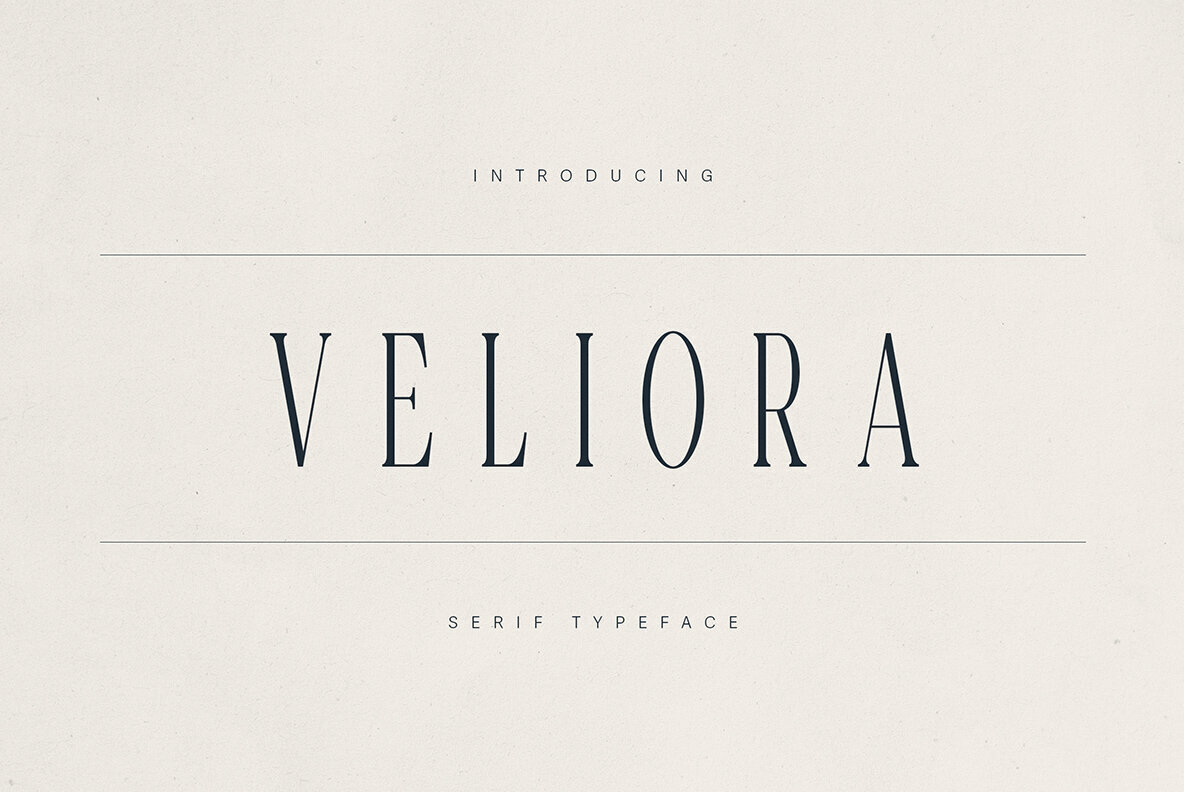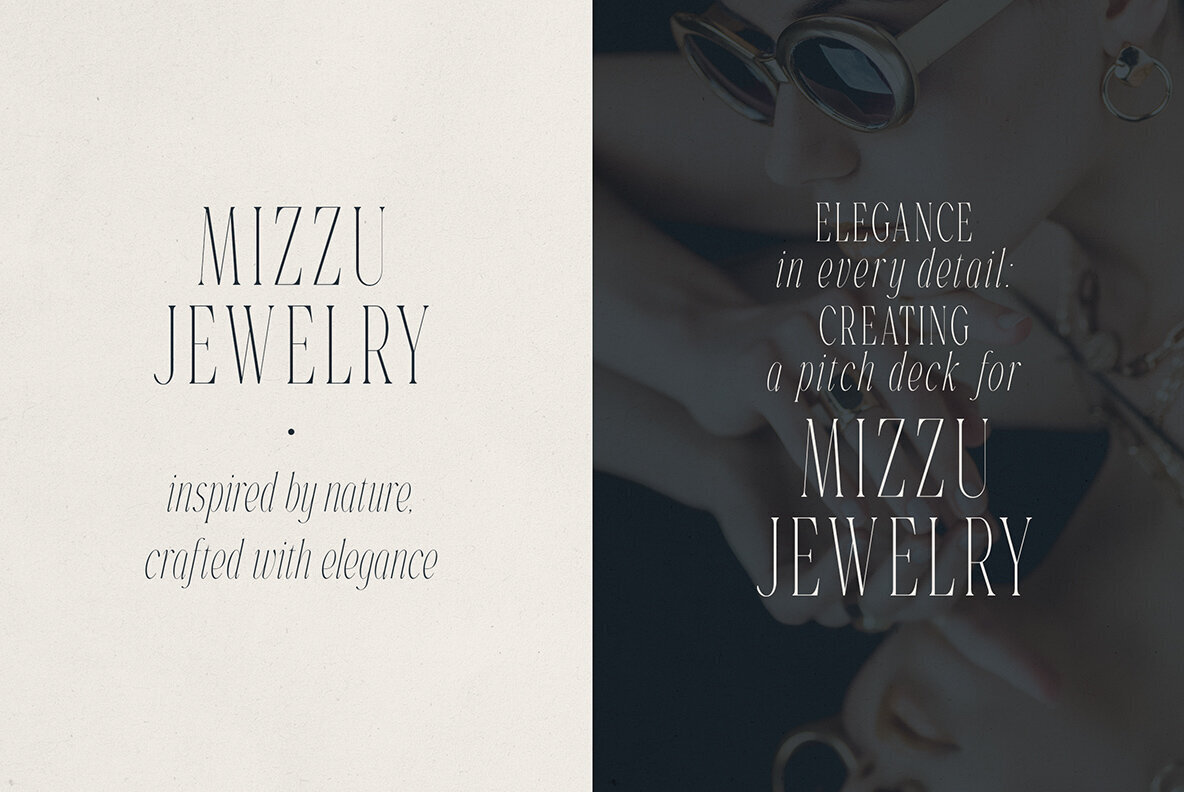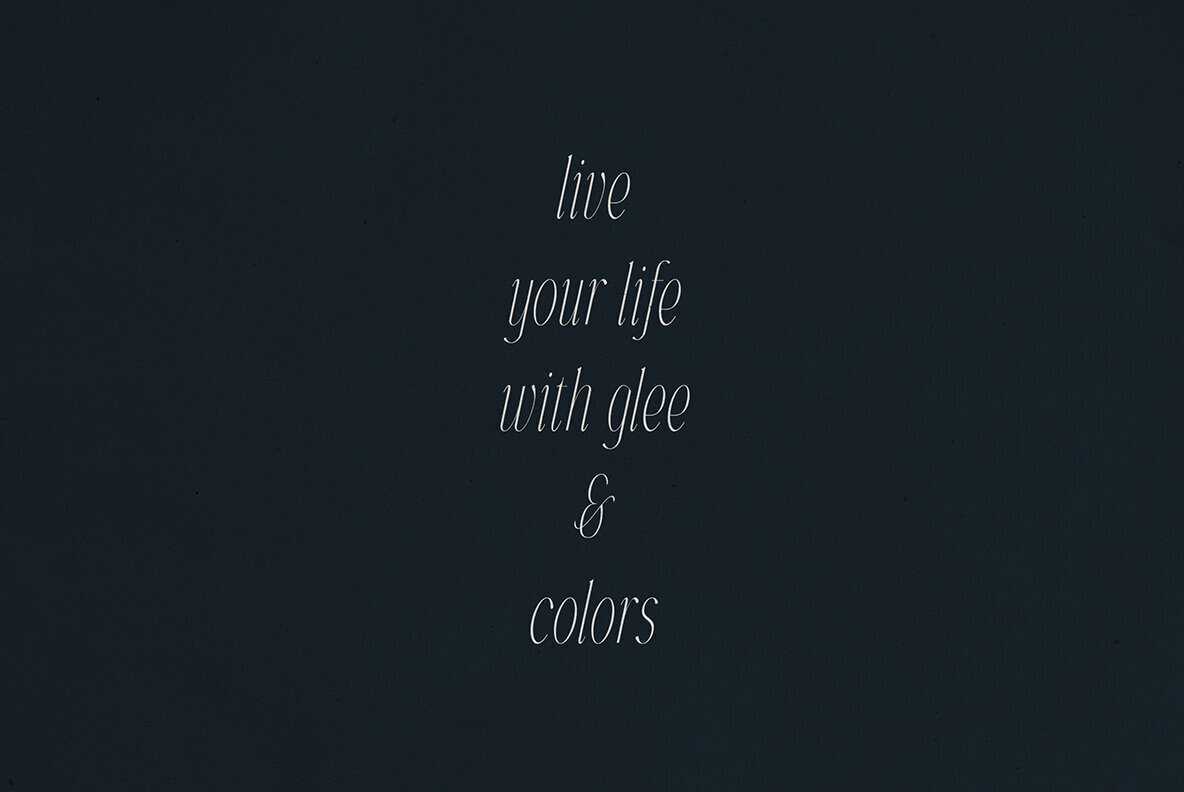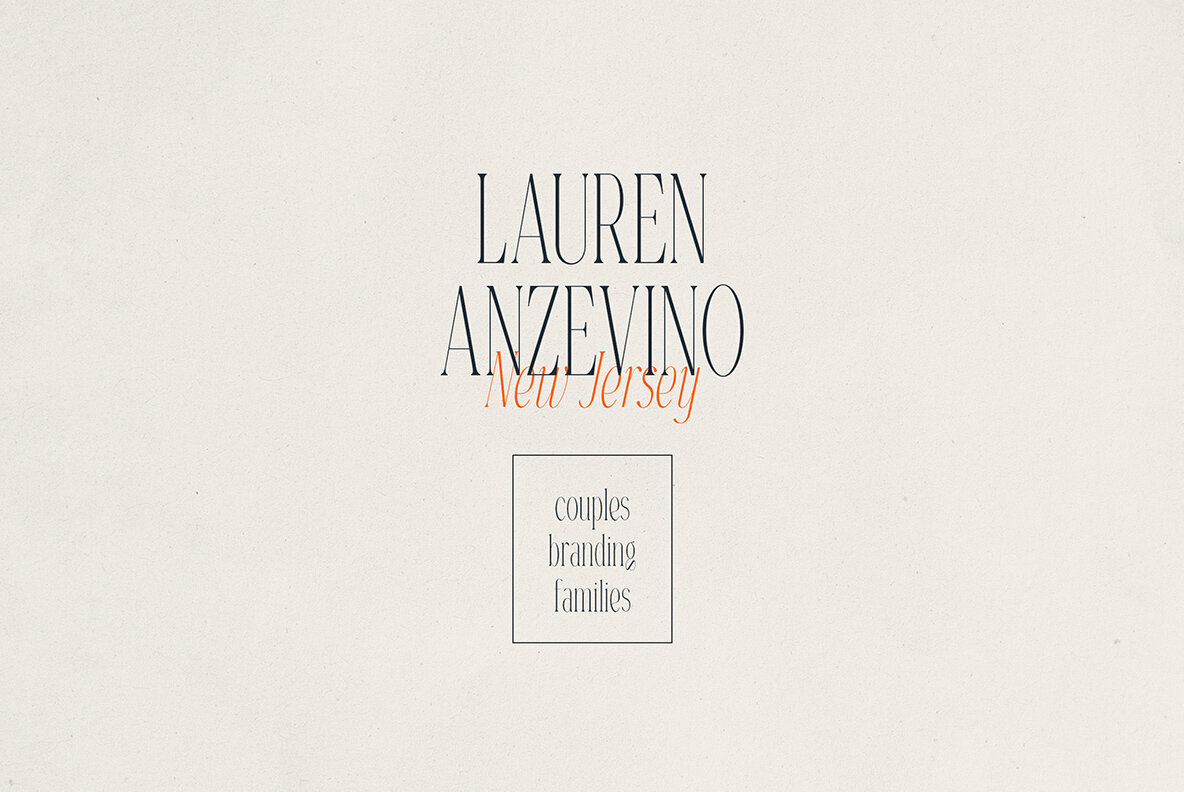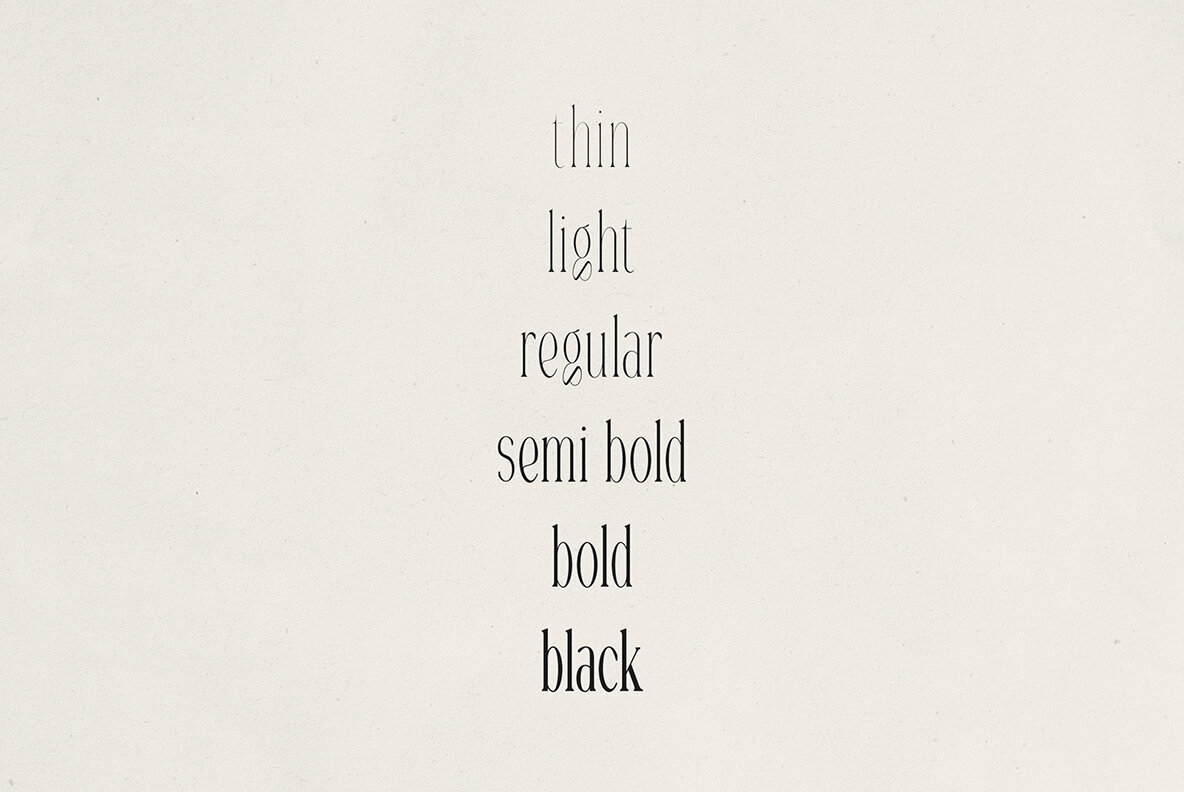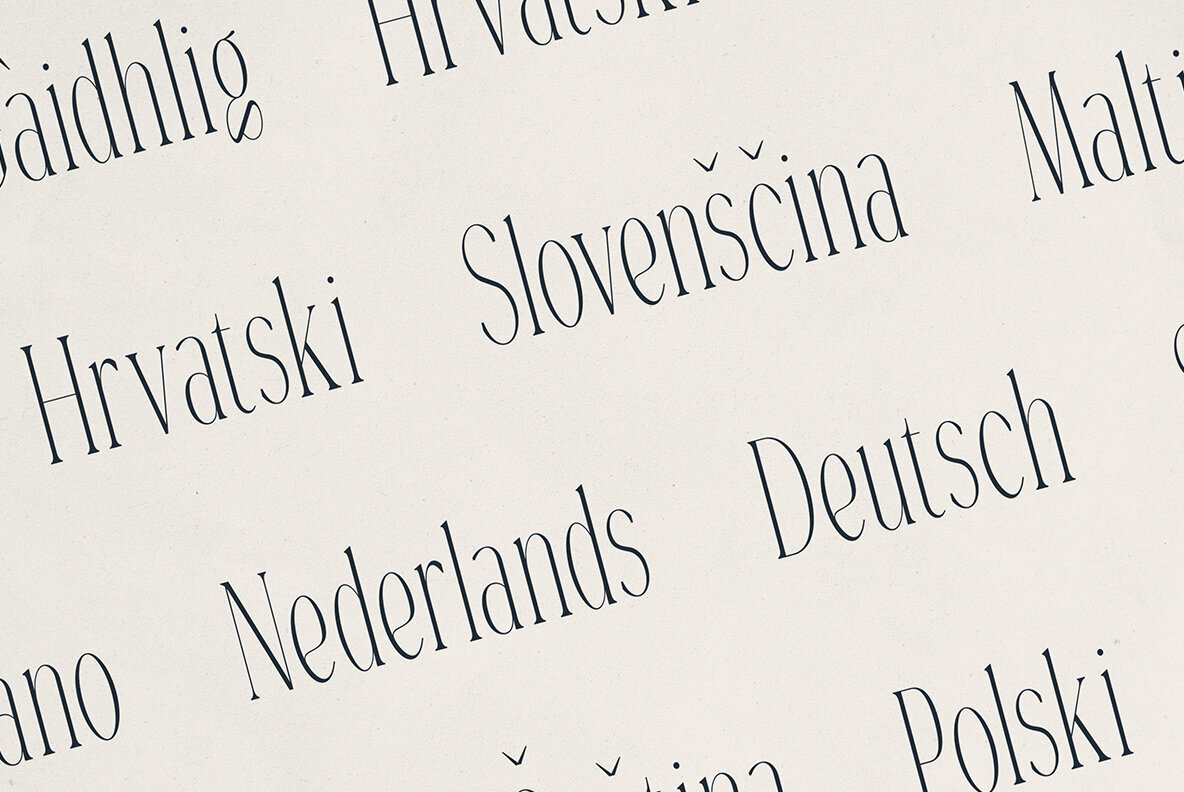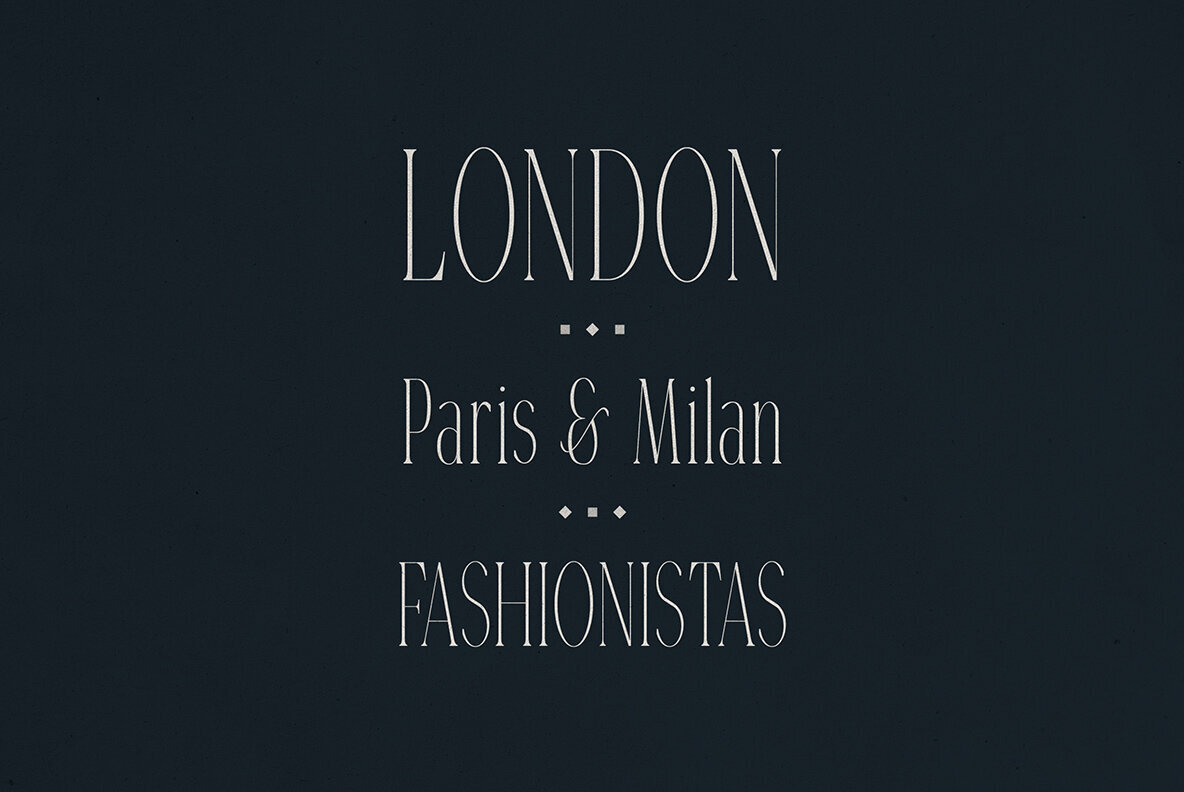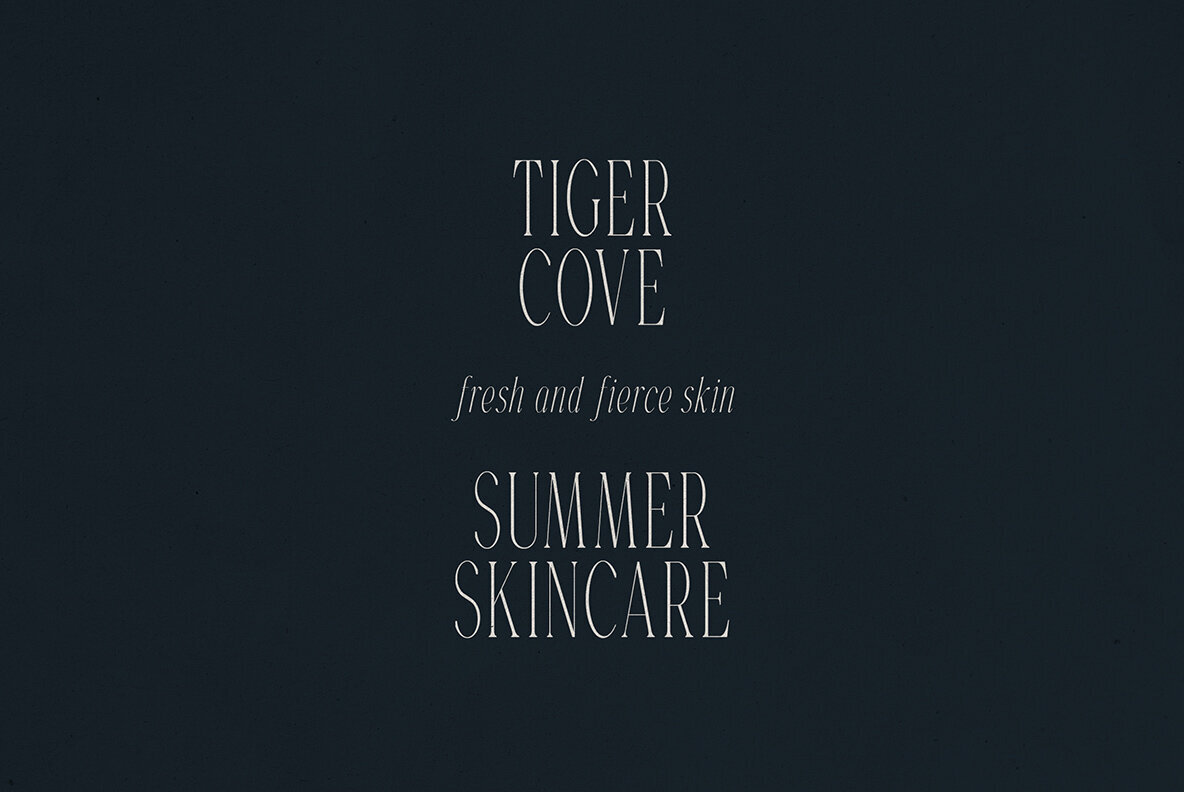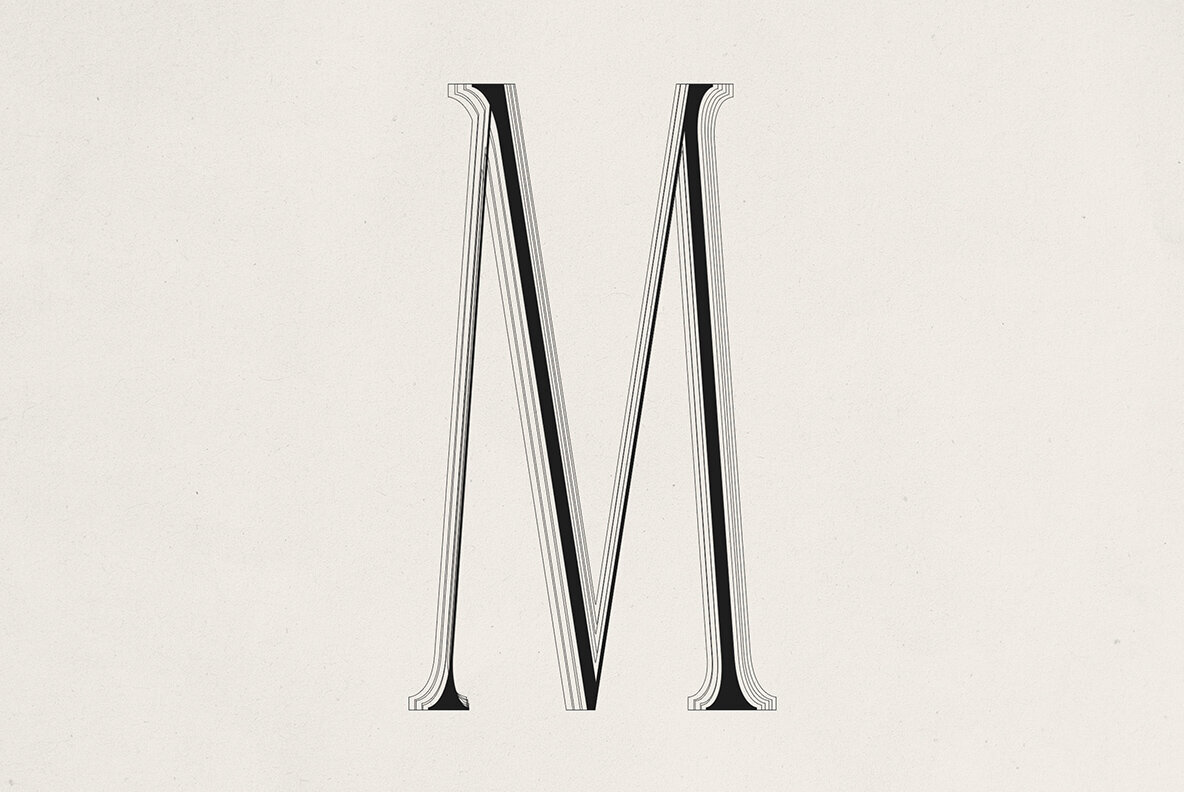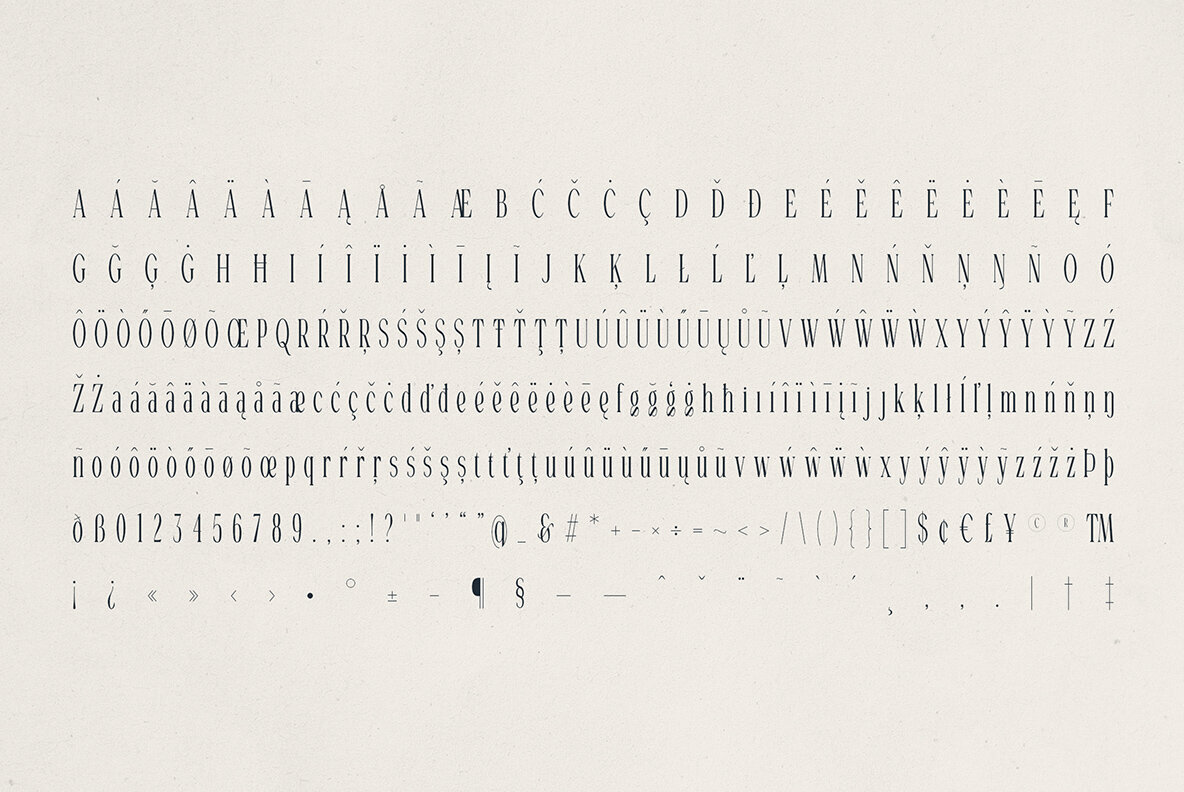
Veliora Font
Experience the classic allure of Veliora, a sophisticated long serif typeface that enriches any design with timeless charm. Crafted with precision, Veliora offers five distinct weights, from Thin to Black, each complemented by true italics. This flexibility makes it an ideal choice for editorial designs, branding, packaging, and digital media where elegance meets function. Bring a high-fashion touch to your design projects, whether it's a luxury logo, magazine spread, or premium digital content. Veliora seamlessly blends beauty with functionality, offering a distinctive edge that stands out in diverse design contexts. The font supports a wide array of languages, ensuring that your message resonates globally with clarity and style.Veliora Typeface: Elegance Redefined